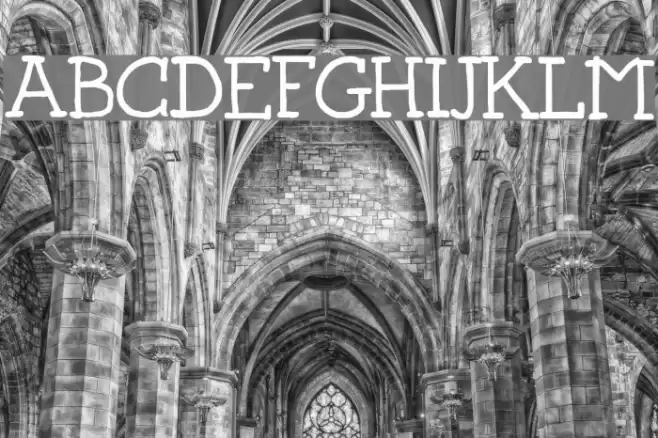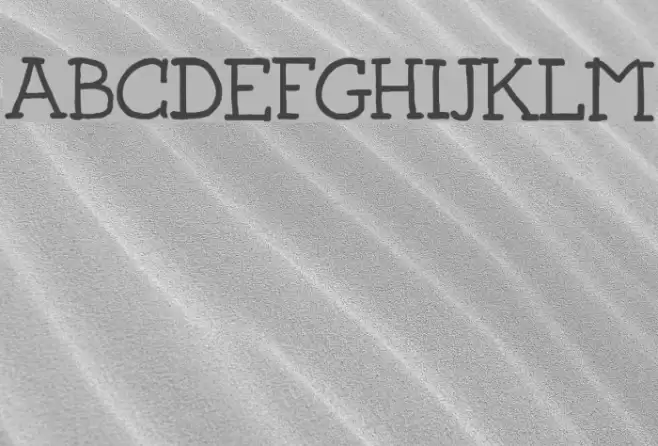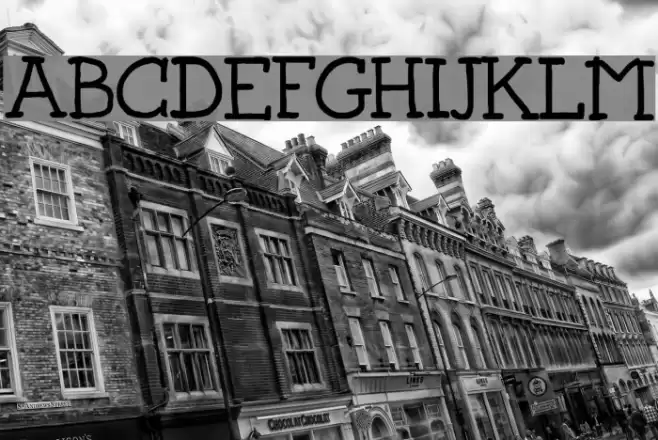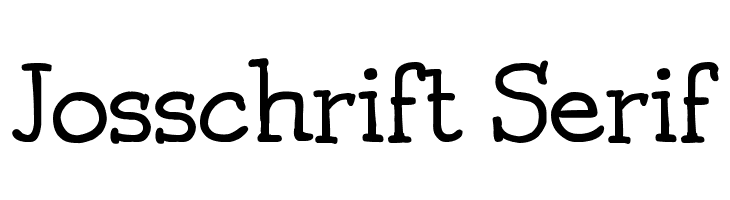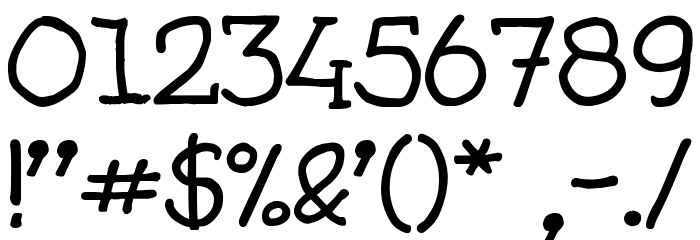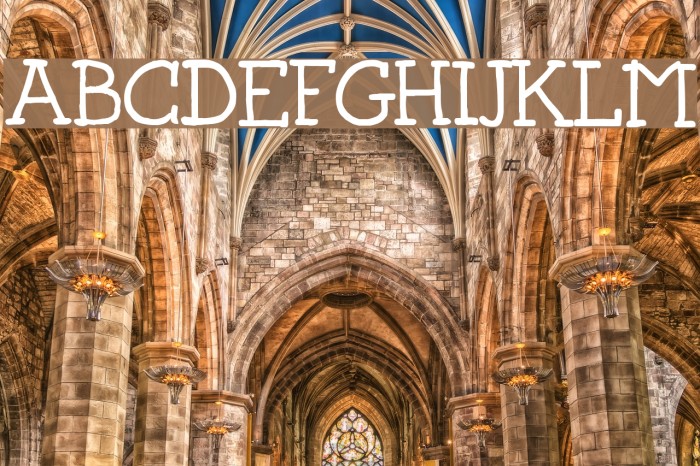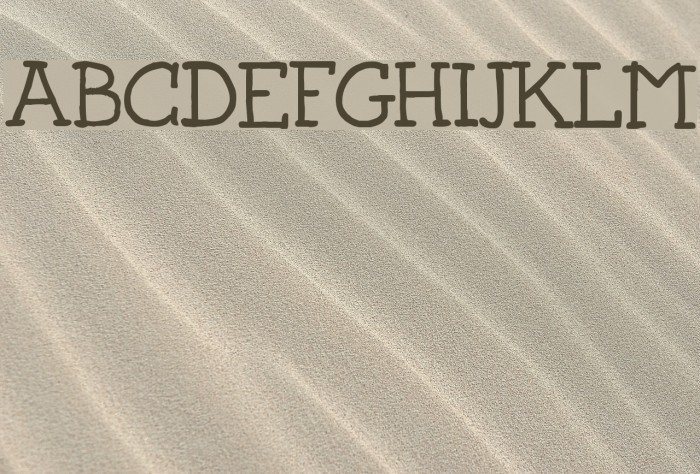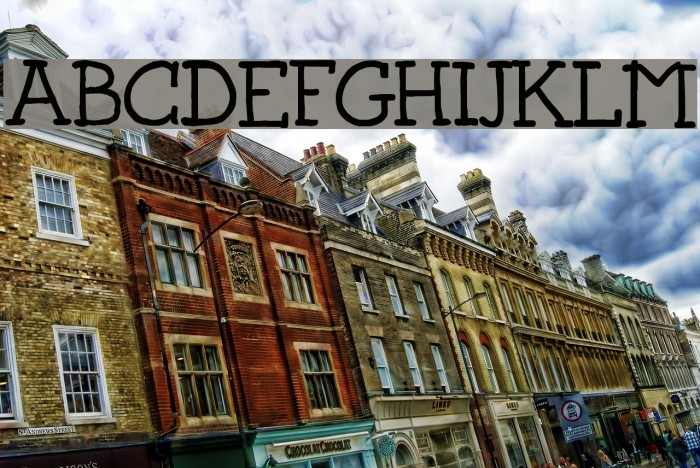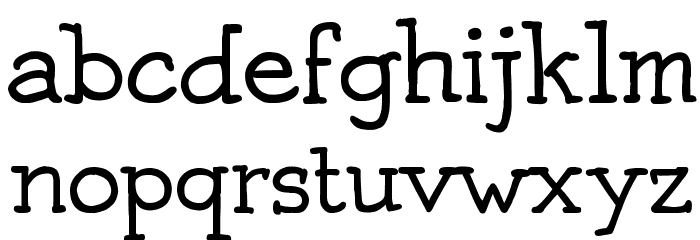
Josschrift Serif Font
Josschrift Serif Description
This font features a playful and whimsical design with a hand-drawn aesthetic. The characters have a slightly uneven baseline, adding to its casual and friendly appearance. The strokes are consistent in width, giving it a uniform look despite its informal style. The serifs are subtle, enhancing readability while maintaining a relaxed vibe. The font includes a full set of uppercase and lowercase letters, numbers, and a variety of special characters, making it versatile for different uses. Its unique charm makes it suitable for projects that require a personal touch.
A playful, hand-drawn serif font with a whimsical and casual style from Handwritten fonts.
- Proposed Projects: Ideal for children's books, greeting cards, playful branding, and creative posters.
- Use Case: Headlines, Logos, Creative projects